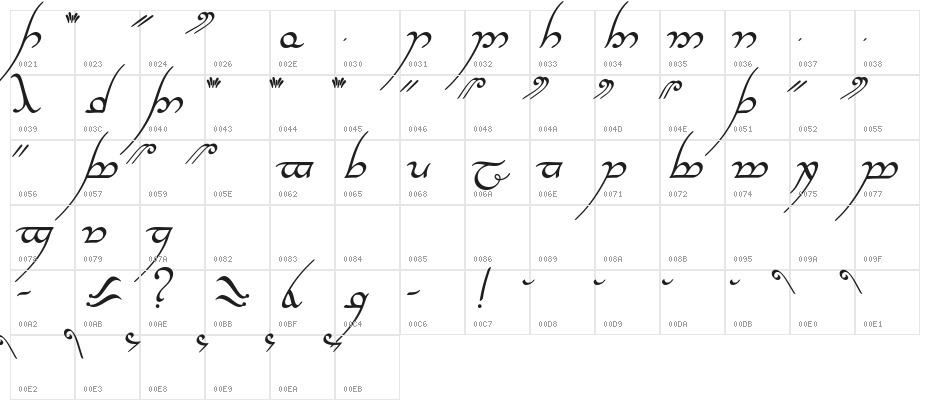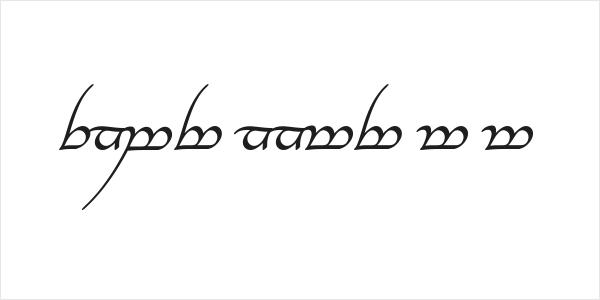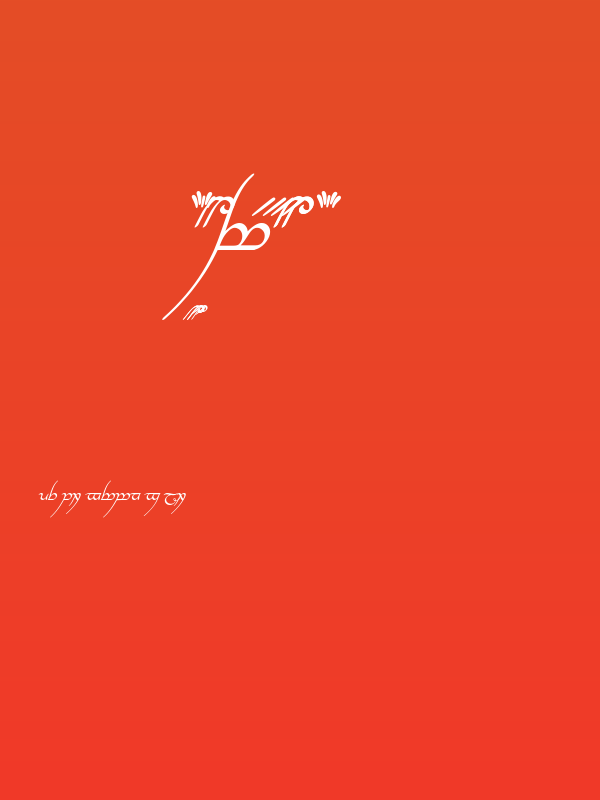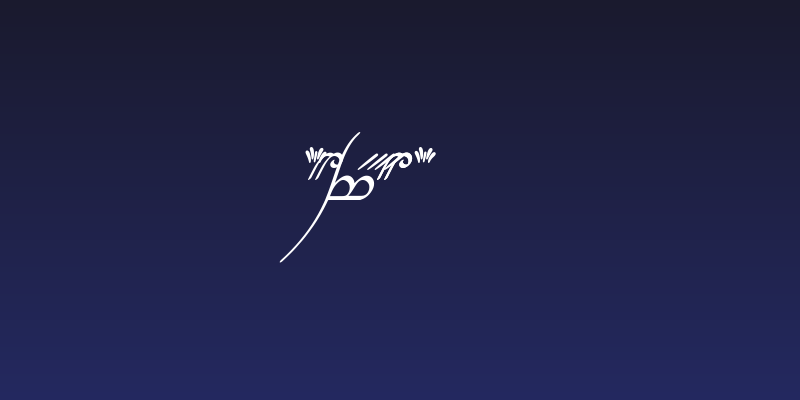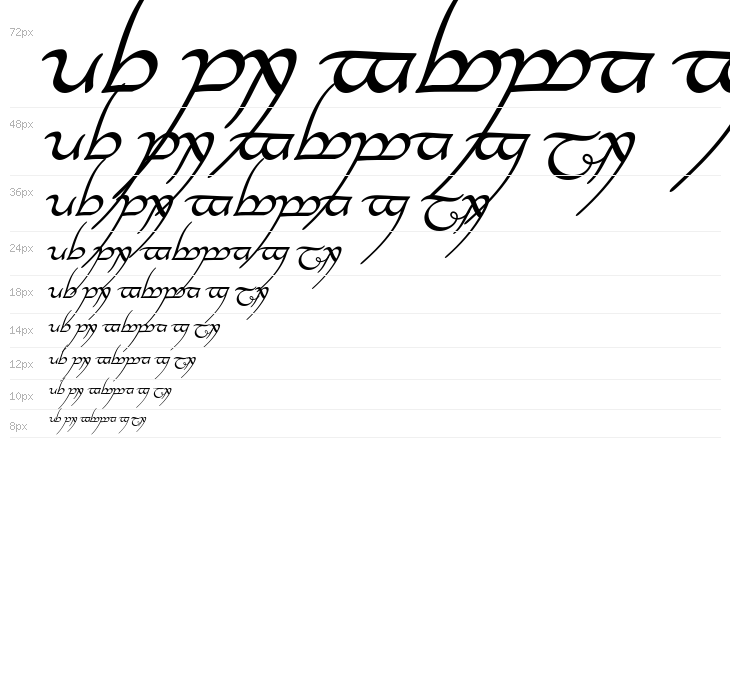
Tengwar Annatar Alt Italic Font
Tengwar Annatar Alt Italic Description
This font is a decorative script inspired by the elegant and flowing forms of fictional elvish writing. It features intricate curves and loops, giving it a mystical and ancient appearance. The characters are highly stylized, with elongated strokes and ornate embellishments that create a sense of fluidity and grace. The font's design is reminiscent of calligraphy, with a focus on artistic expression and visual impact. It is ideal for projects that require a touch of fantasy or a connection to mythical themes.
| Use Case | Logos, Titles, Decorative text |
| Proposed Projects | Ideal for fantasy-themed projects, book covers, movie titles, or game design elements. |